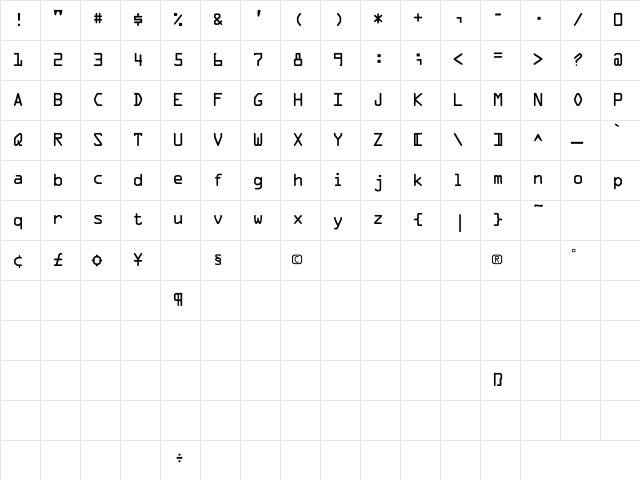
Microscan A Regular Free Font
Microscan A Regular
Microscan A Family
Microscan A Regular
Design Context for Microscan A
Microscan A is a composed and adaptable typeface that performs quietly and consistently across a wide range of design contexts.